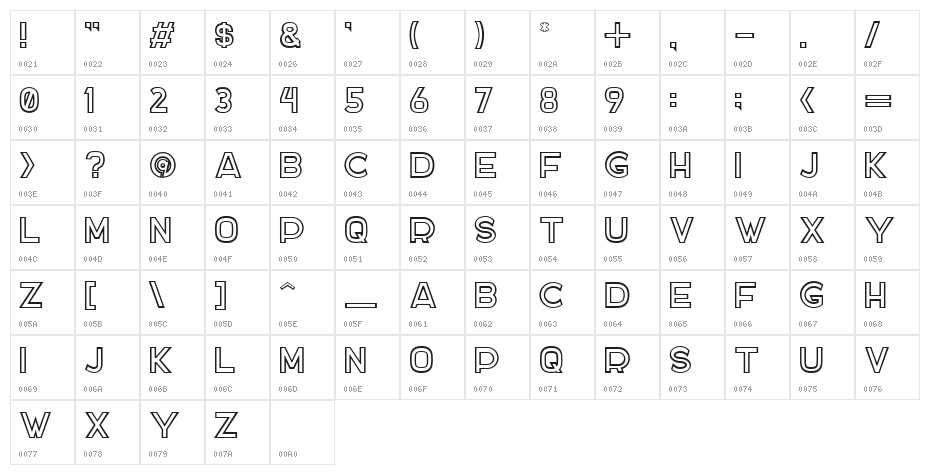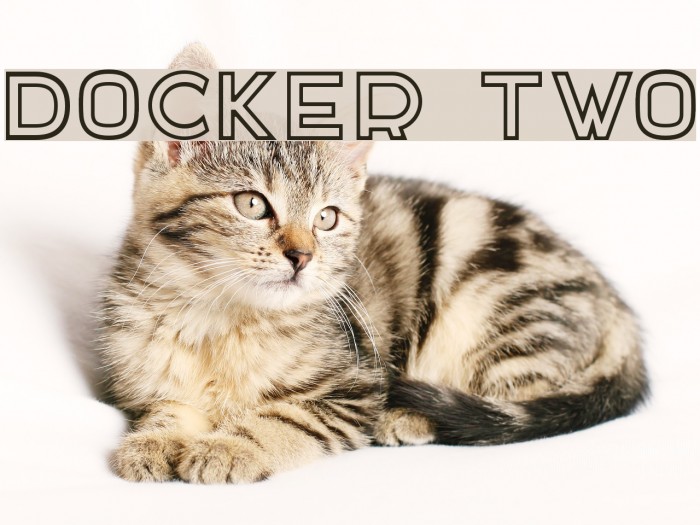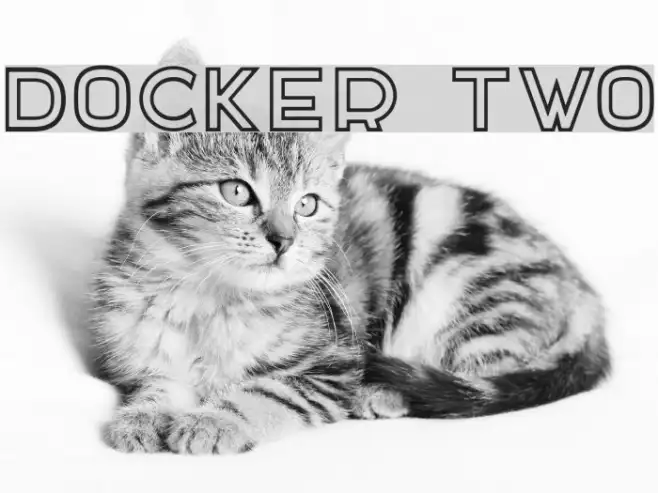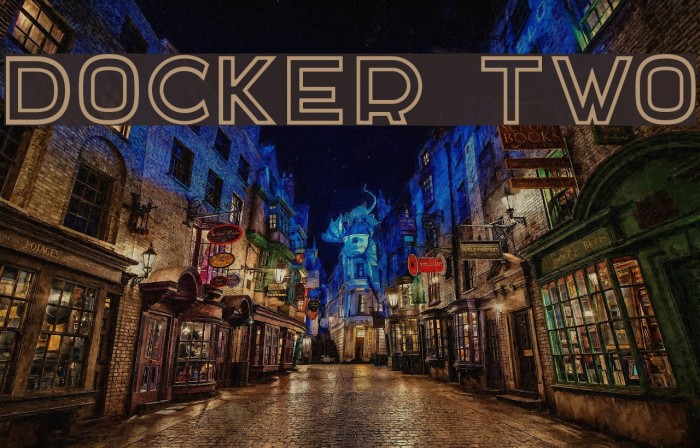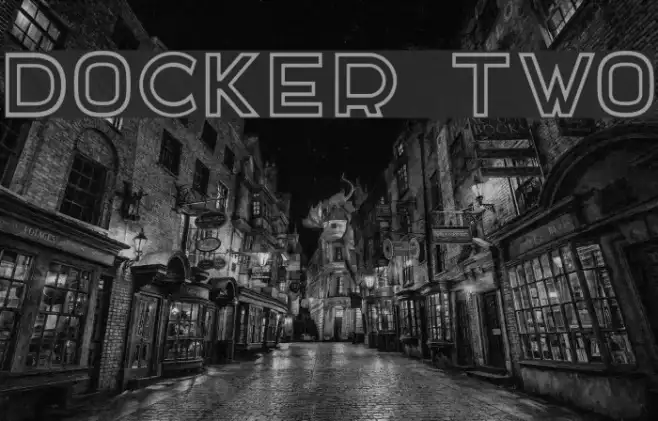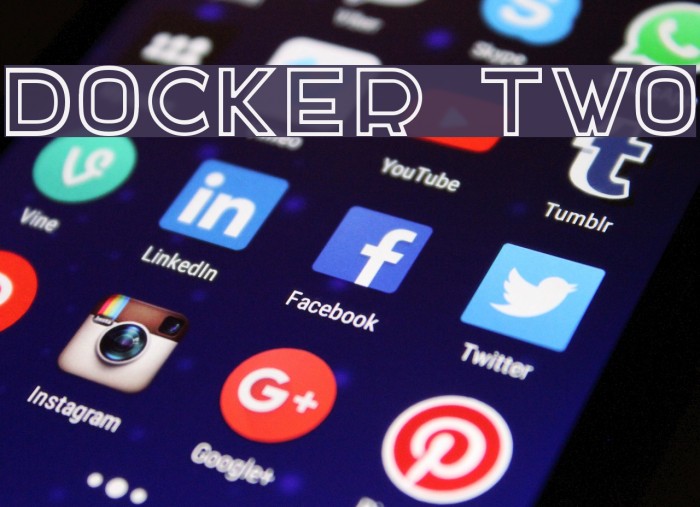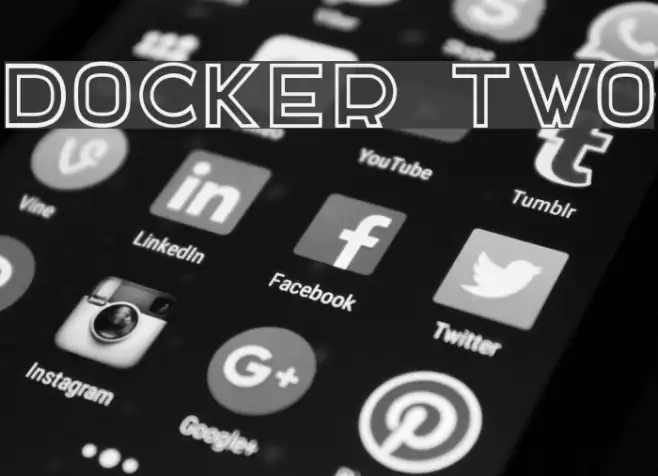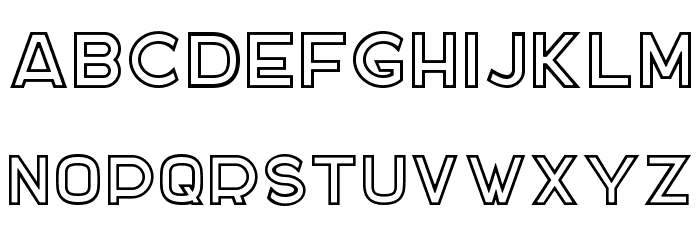
DOCKER TWO Font
DOCKER TWO Description
This font features a bold, geometric sans-serif style with a distinct outline effect. Each character is crafted with a uniform stroke width, creating a clean and modern appearance. The uppercase letters are designed with sharp angles and a consistent height, while the lowercase letters maintain a similar geometric structure. The numerals are equally bold and clear, ensuring readability. Special characters are included, matching the overall aesthetic with their outlined form. This font's simplicity and clarity make it versatile for various design applications.
| Proposed Projects | Ideal for branding, headlines, posters, and digital graphics where a modern and bold statement is needed. |